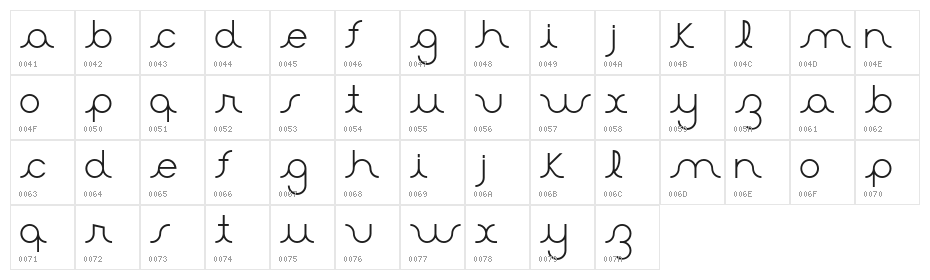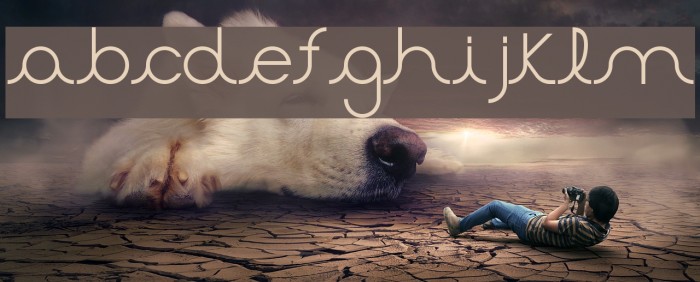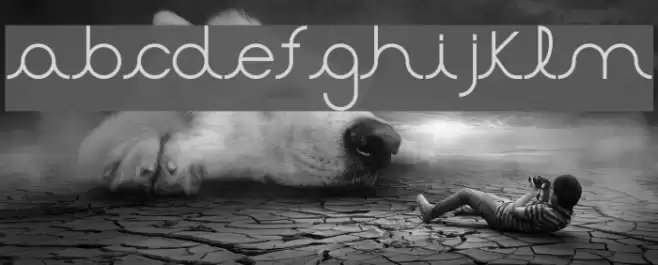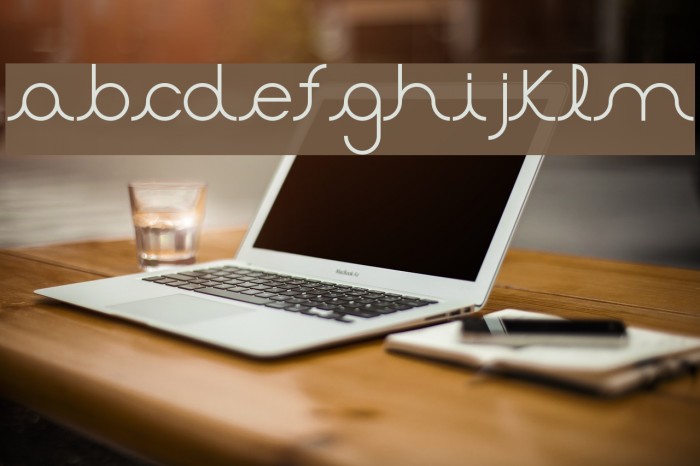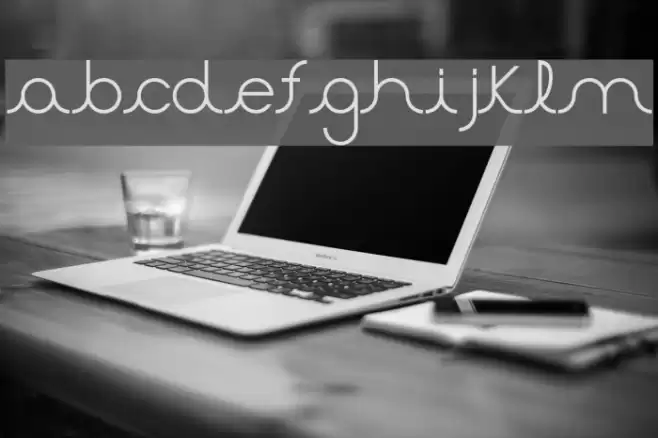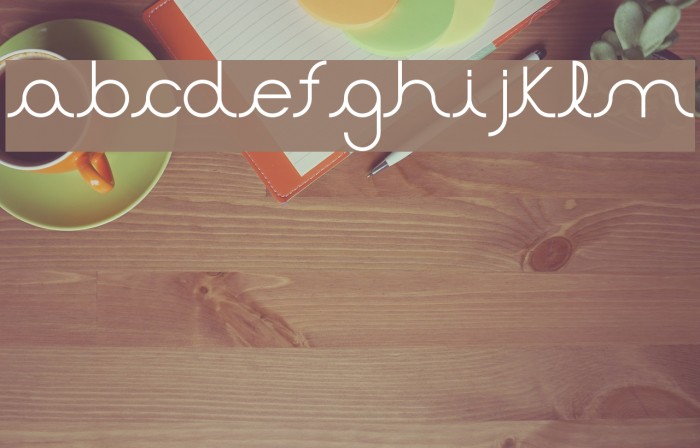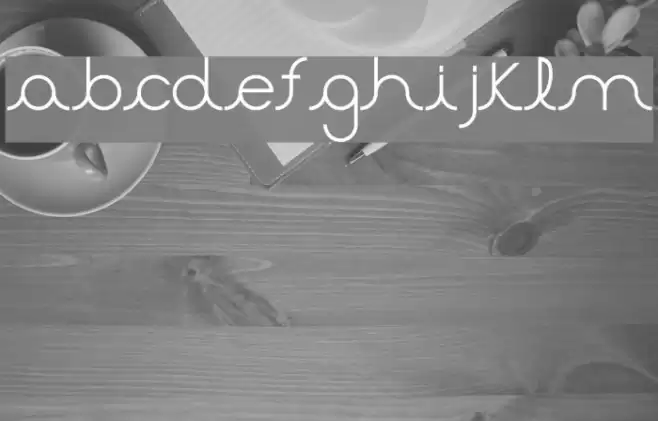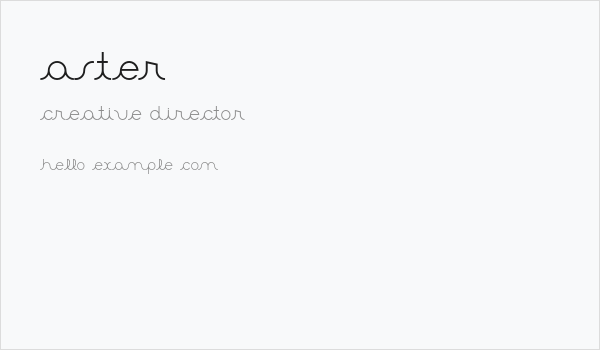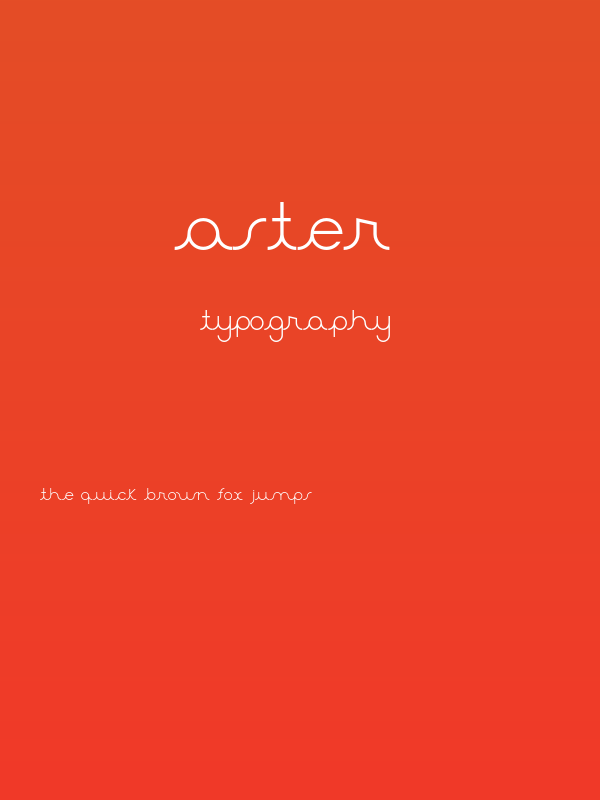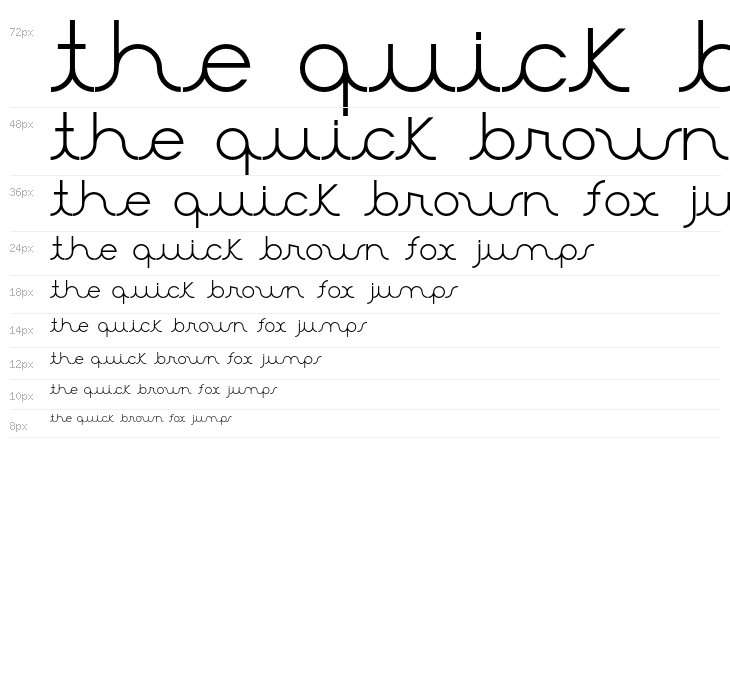
Aster2 Font
Aster2 Description
This font features a unique and playful design with a continuous, flowing script style. The characters are connected, creating a sense of movement and fluidity. The strokes are consistent in thickness, providing a harmonious and balanced appearance. The rounded edges and smooth curves give it a friendly and approachable feel, making it suitable for creative and informal projects. The font maintains readability while adding a touch of elegance and whimsy, perfect for capturing attention in a variety of contexts.
| Use Case | Logos, Invitations, Creative projects |
| Proposed Projects | Ideal for greeting cards, invitations, playful branding, and creative projects. |